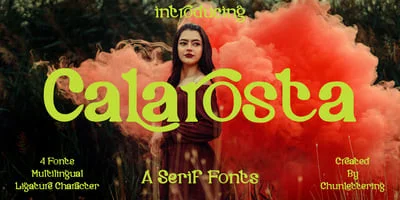
Calarosta Font
Calarosta Font is perfect for gourmet restaurant branding, culinary magazine layouts, artisanal food packaging, fine dining menus, specialty coffee shops, Mediterranean cuisine marketing, and sophisticated hospitality designs.
What makes Calarosta Font exciting is its warm culinary charm and artisanal elegance, featuring inviting letterforms that capture the essence of fine dining while delivering delicious visual appeal and gastronomic authenticity.
The Calarosta Font family includes Light, Regular, Medium, Bold, and Black weights, plus decorative flourishes and culinary-inspired alternates that enhance the font's appetizing character and restaurant appeal.
Calarosta Font brings the sophisticated flavors of fine dining and culinary artistry to life through exceptional typography design. This delectable typeface embodies the warmth and elegance of gourmet cuisine, creating an inviting visual language that speaks to food lovers and culinary enthusiasts who appreciate exceptional taste, quality ingredients, and memorable dining experiences. The font's appetizing character and culinary appearance make it ideal for restaurants, food brands, and hospitality businesses that want to communicate quality, flavor, and the artistry of exceptional cuisine.
Culinary establishments and gourmet brands consistently select Calarosta Font for projects that require authentic gastronomic credibility and appetizing visual appeal. The typeface's warm construction and inviting personality make it exceptionally effective for fine dining restaurants, artisanal food producers, and culinary publications where taste and culinary excellence are paramount. Each character has been crafted with culinary precision to ensure delicious appeal across all restaurant applications and gastronomic environments.
The culinary advantages of Calarosta Font extend beyond its appetizing appeal to include practical functionality for diverse food service applications. The font maintains excellent readability on menus and packaging while delivering the distinctive character that creates memorable dining experiences and connects with customers seeking authentic culinary quality. Its comprehensive character set includes culinary symbols and gastronomic elements that make it particularly suitable for restaurant documentation and food service communication.
Fine dining establishments, gourmet food producers, and culinary organizations frequently choose Calarosta Font because of its ability to instantly convey culinary expertise and gastronomic sophistication. The typeface's appetizing aesthetic helps establish credibility in competitive food markets while appealing to diners who value exceptional cuisine, culinary artistry, and the memorable experiences that come from outstanding food quality and sophisticated dining atmospheres.